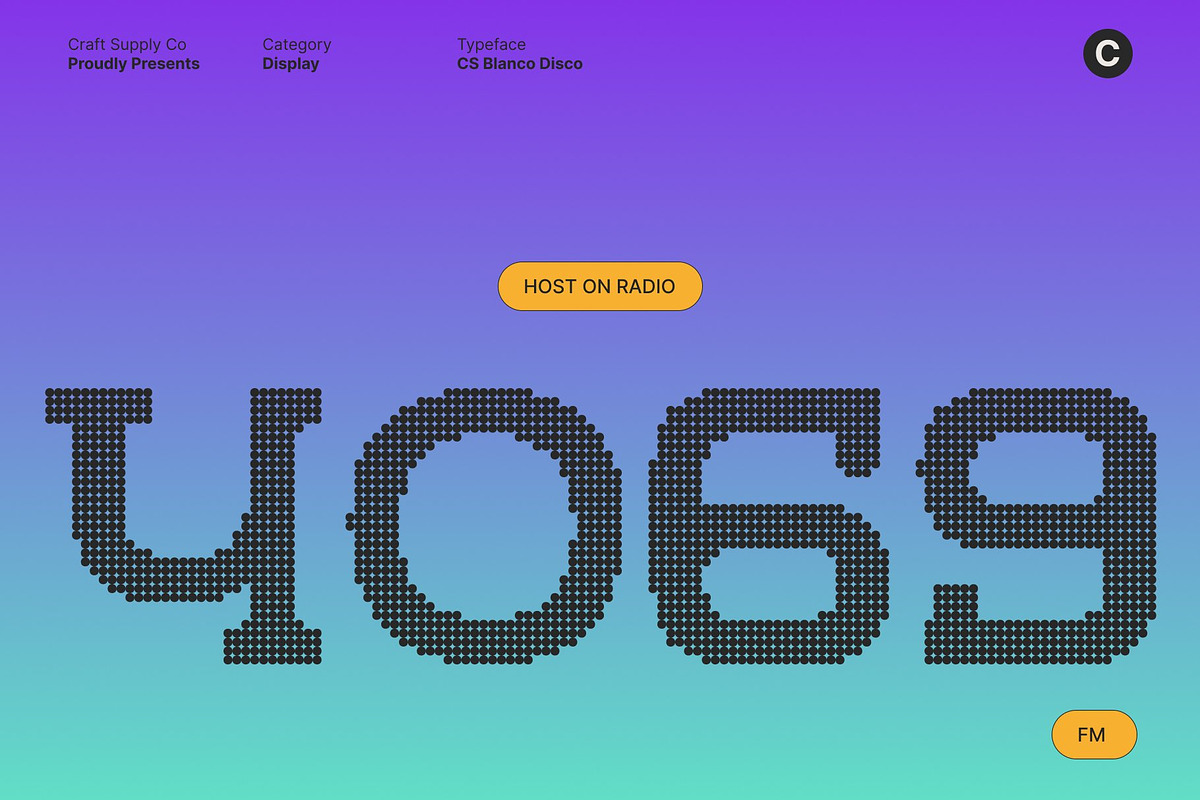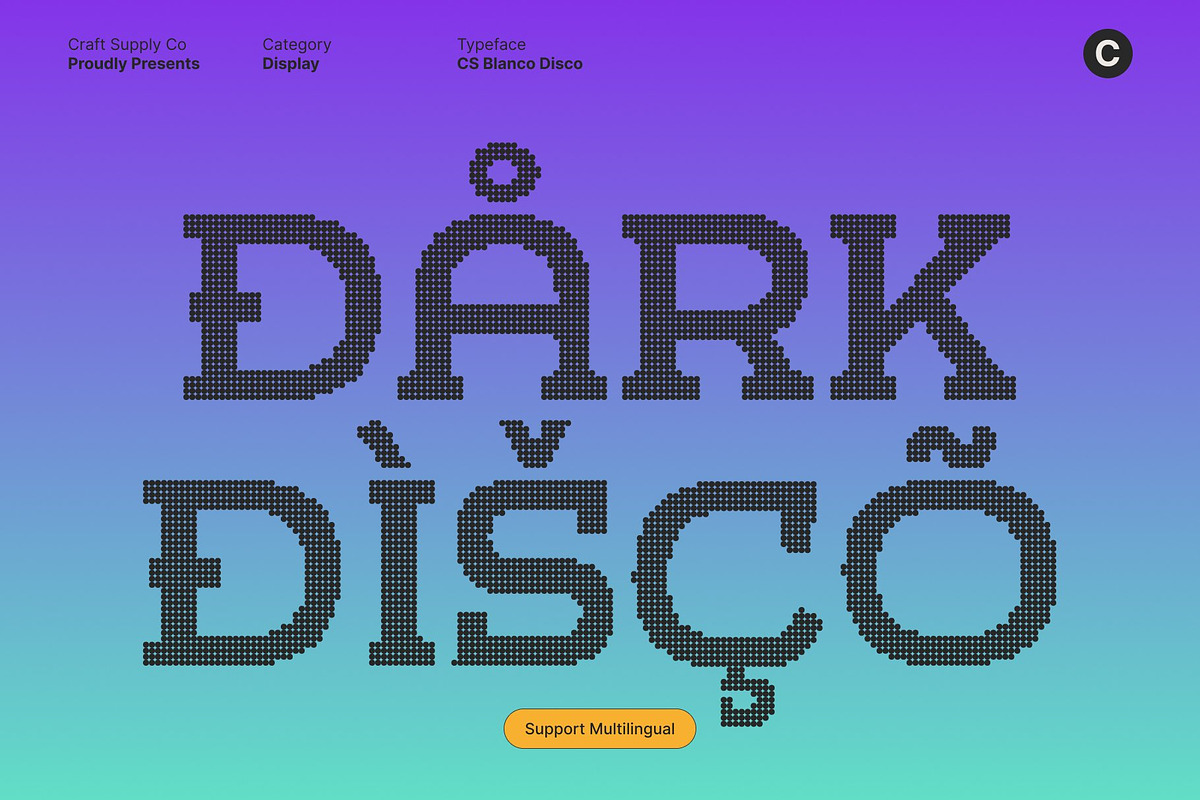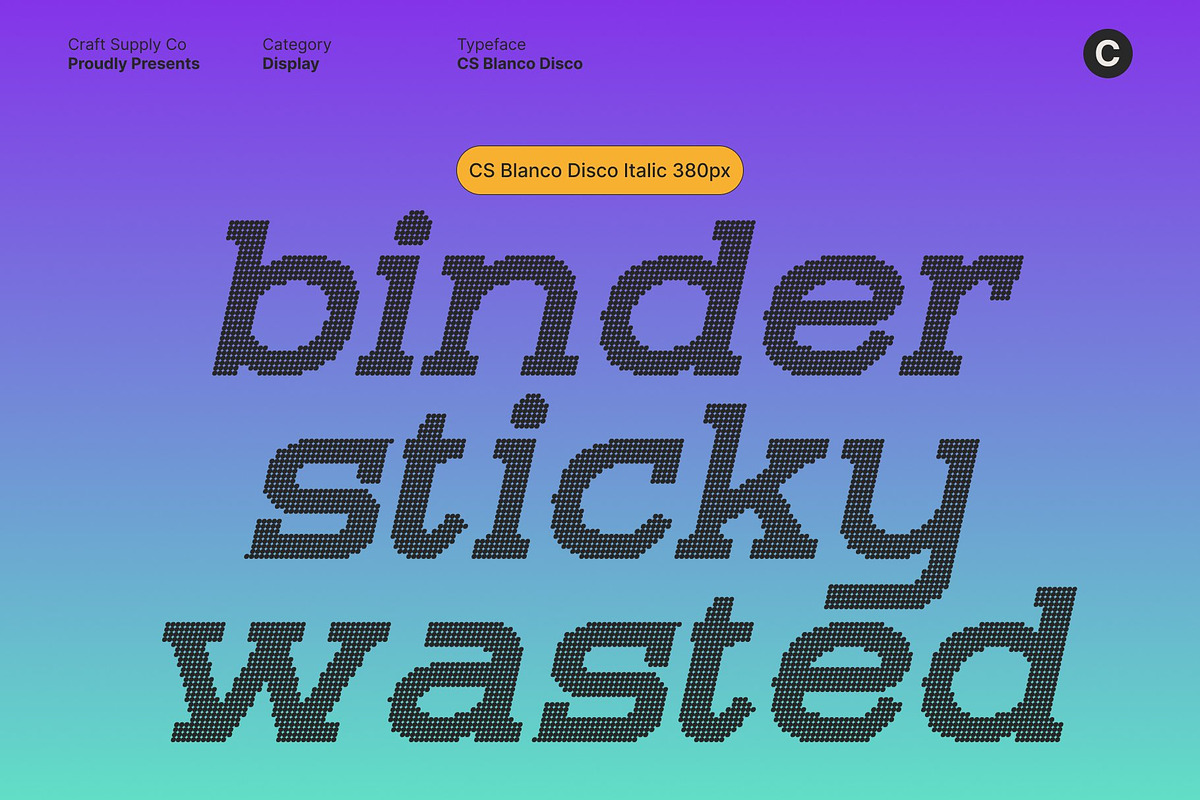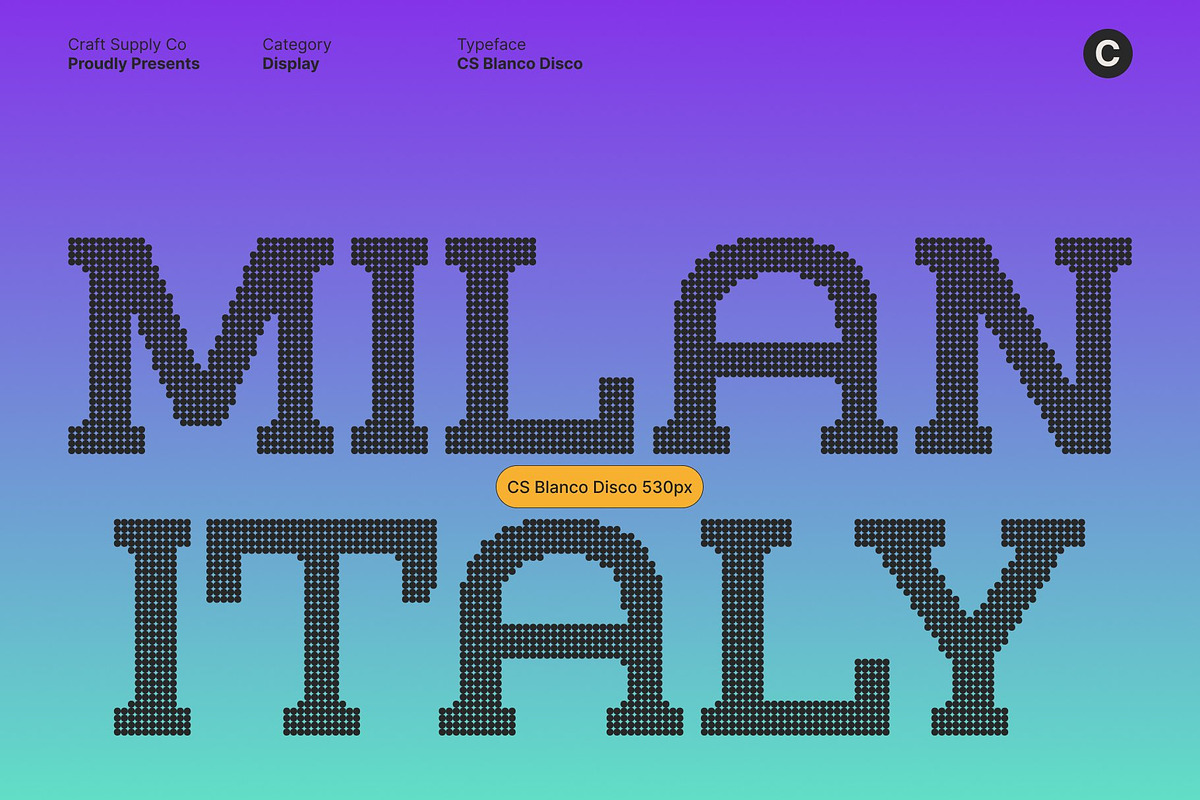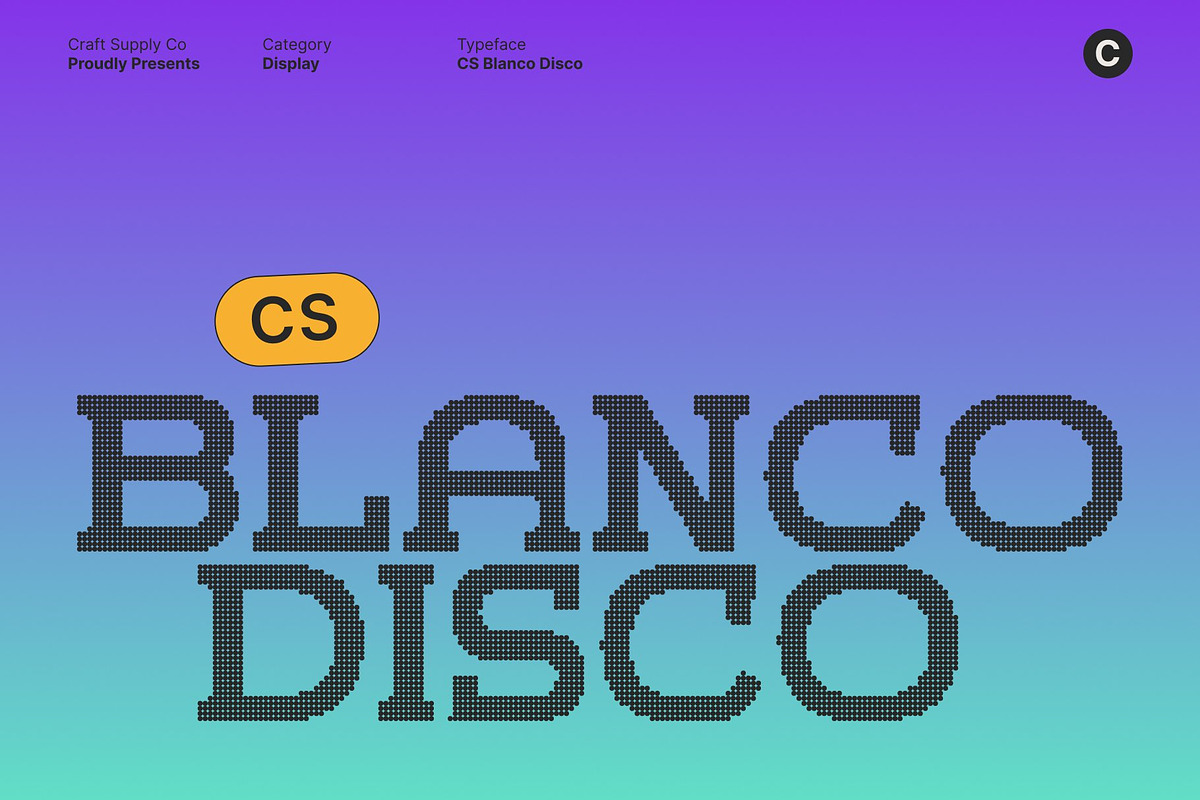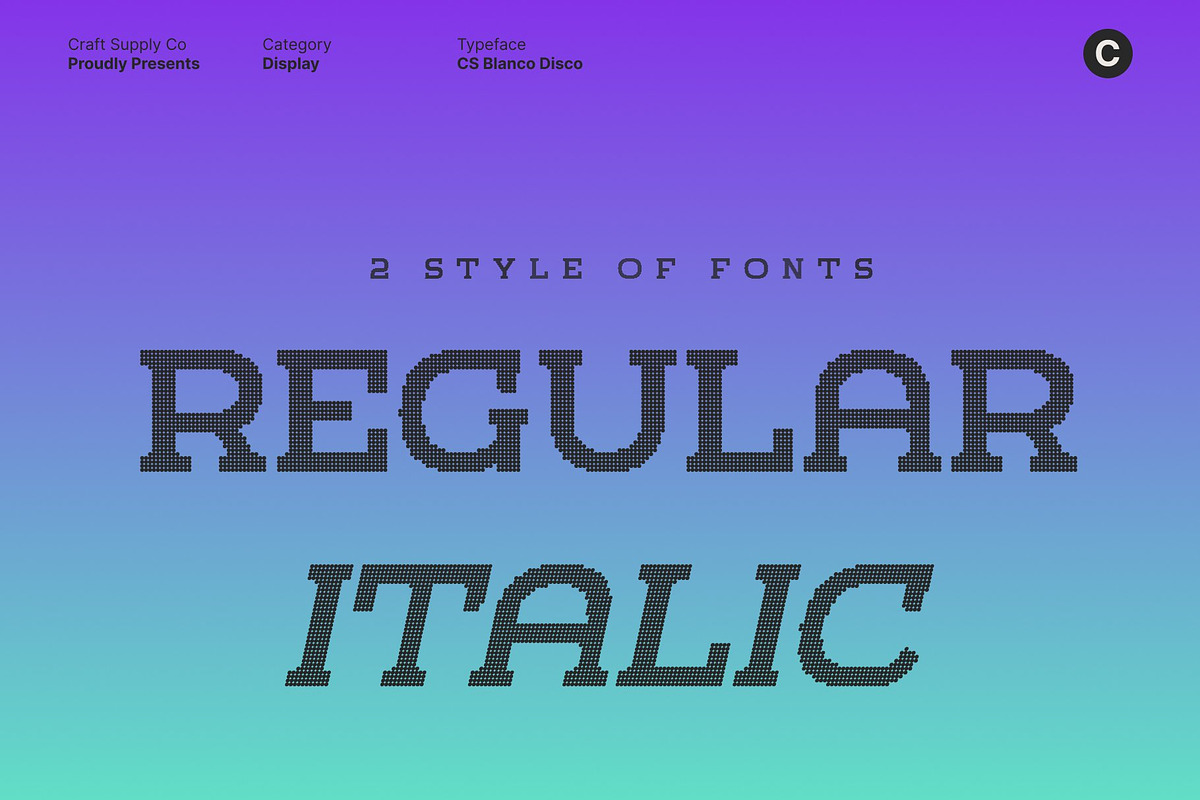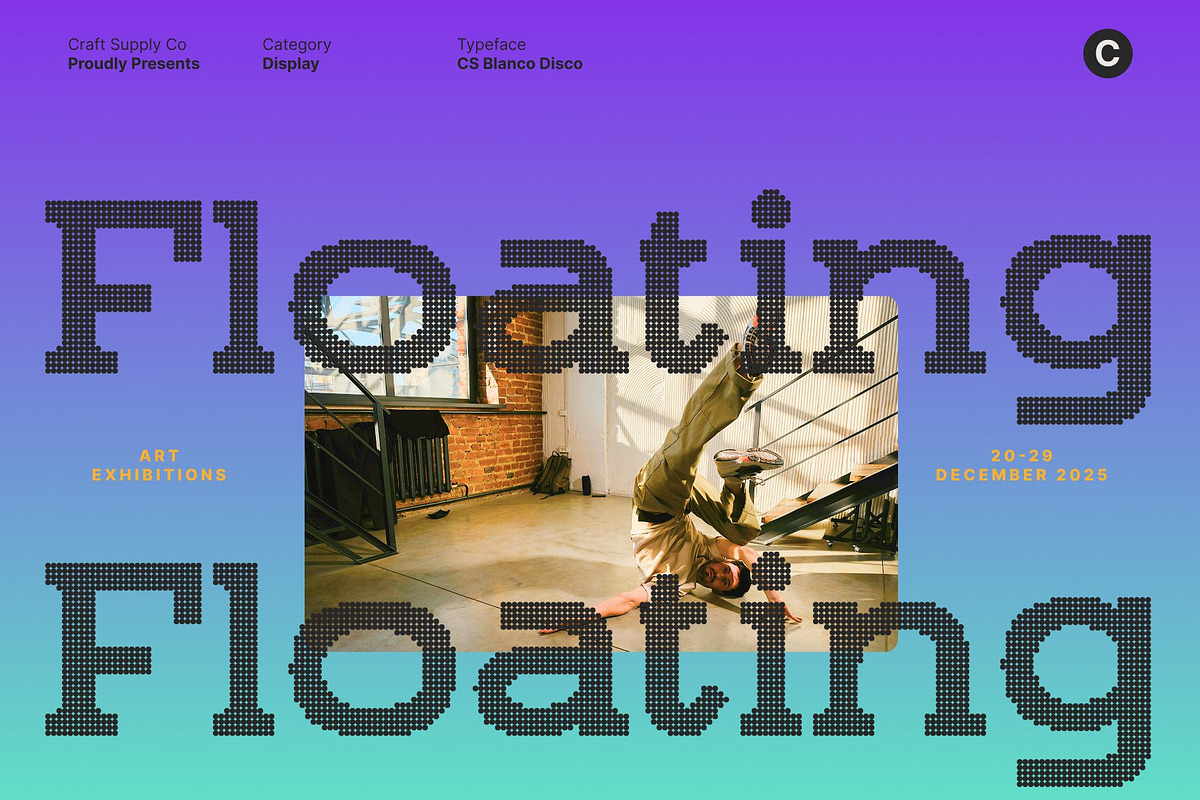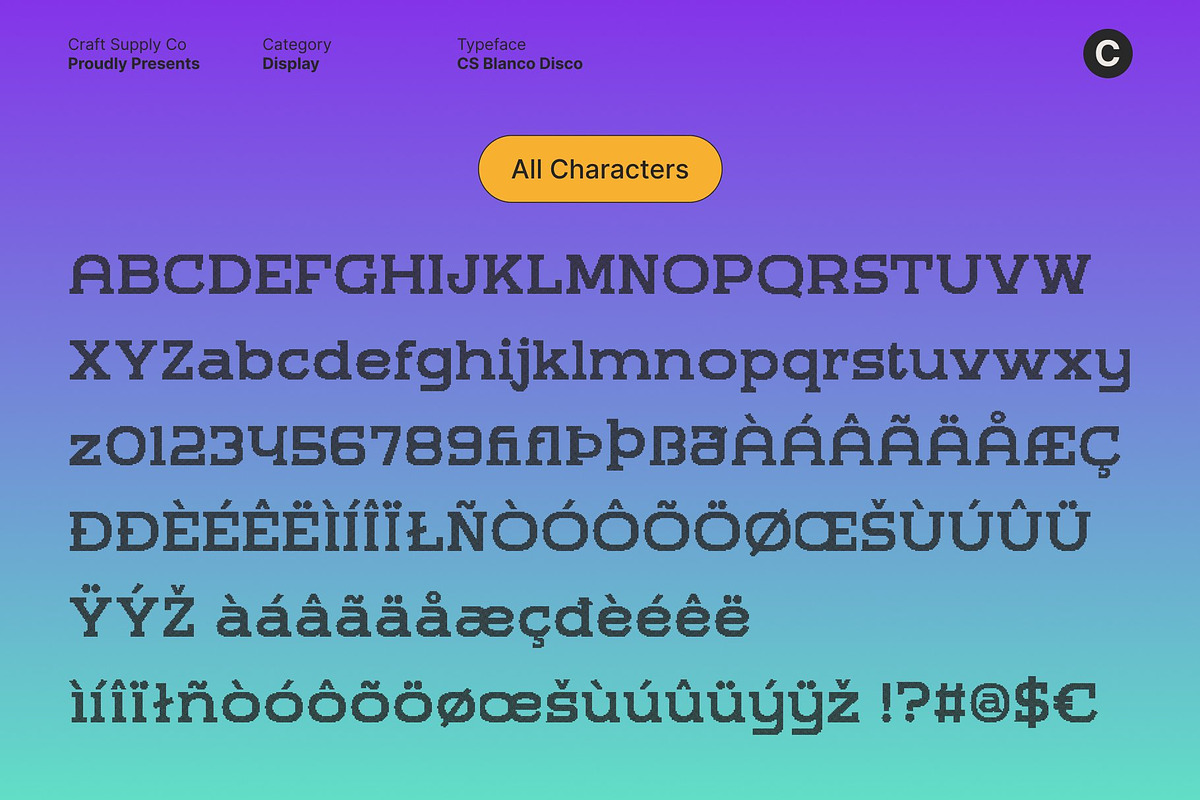
CS Blanco Disco
CS Blanco Disco – Expanded Slab Serif with Bold Power and Disco Energy
Expanded Slab Serif Forms with Disco Confidence This is an expanded slab serif font built to deliver commanding strength with a glamorous disco twist. Its wide proportions and sturdy slab serifs create a powerful, assertive stance, while the disco style injects vibrant energy and visual rhythm. The result is a bold display typeface that feels confident, modern, and ready to dominate the spotlight.
Maximum Readability with High-Impact Presence Designed for clarity at scale, this font performs exceptionally well in large-format applications. Its strong letterforms and expanded width ensure outstanding readability from long distances, making it ideal for headlines, posters, advertisements, billboards, and signage where visibility and impact are essential.
Modern Strength with Festive Glamour While grounded in solid slab serif construction, this font brings a festive, high-energy atmosphere inspired by flashing lights and dance-floor excitement. This fusion of sturdy geometry and disco flair gives the font a bold yet celebratory personality perfect for modern branding that wants to feel powerful without losing excitement.
Perfect for Sports, Events, and Energetic Branding With its athletic posture and expanded weight, this font is a natural fit for sports visuals, event branding, and energetic promotional designs. From team identities and sports apparel to party posters, nightlife branding, and bold campaign graphics, this font delivers dominance, excitement, and disco-powered confidence that refuses to be ignored.
- CS Blanco Disco Regular
- CS Blanco Disco Italic